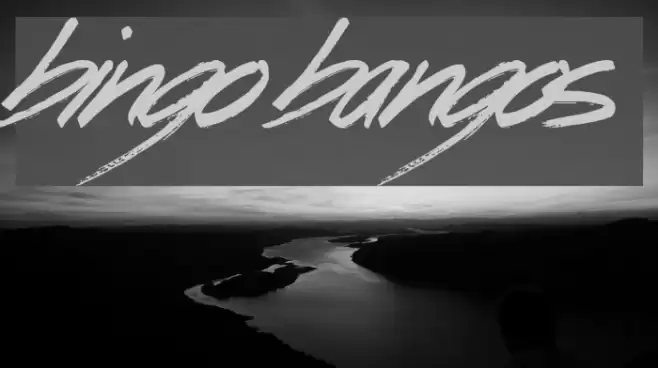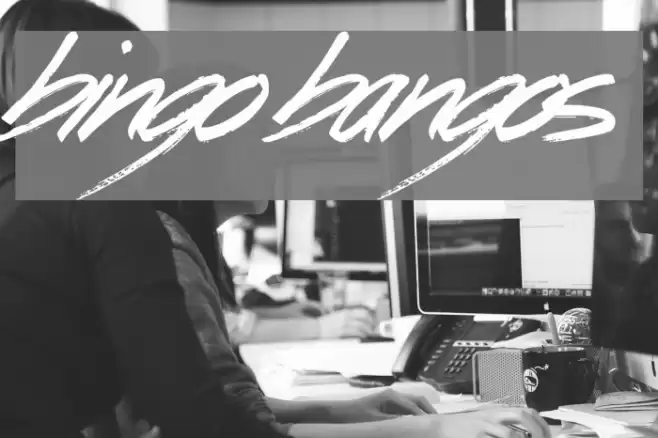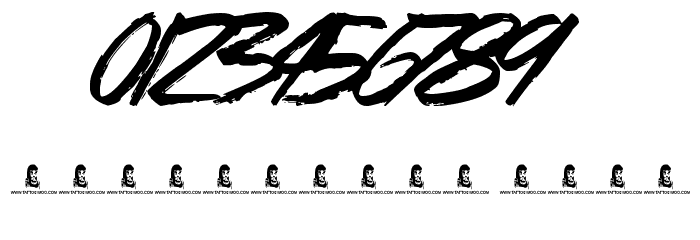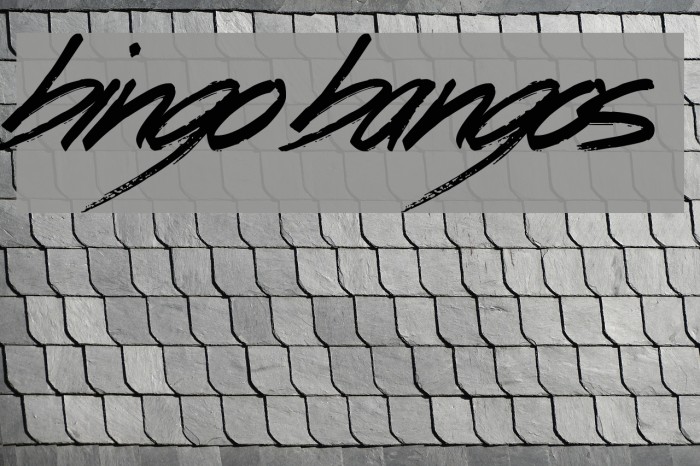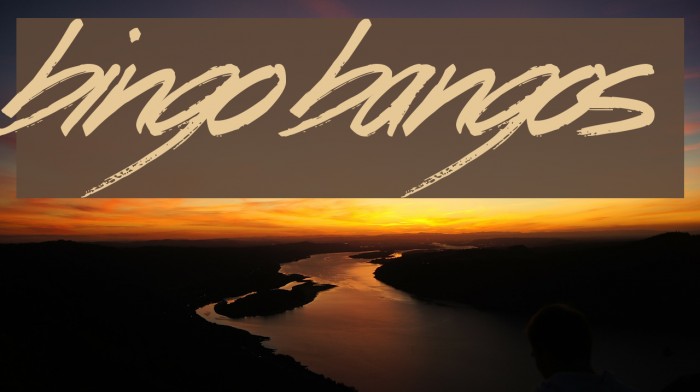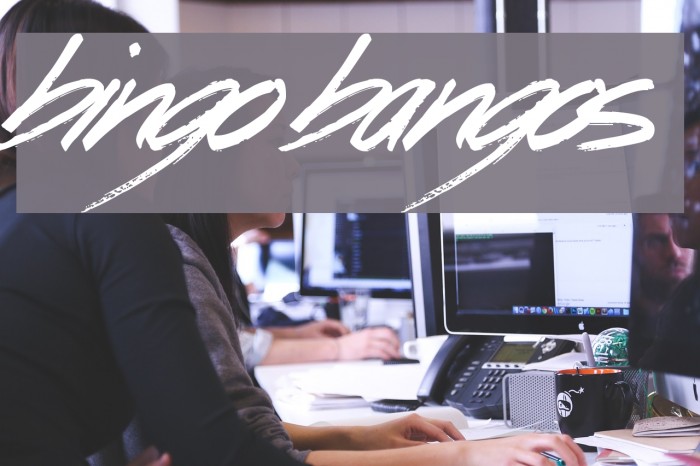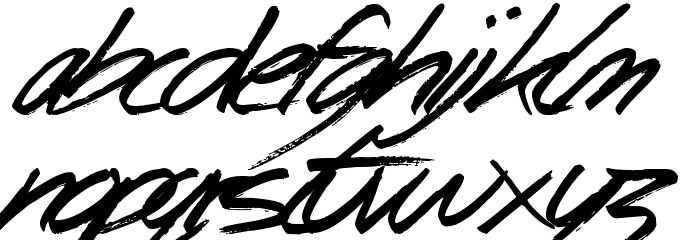
Bingo Bangos Font
Bingo Bangos Description
This font exudes a dynamic and energetic style, characterized by its bold, brush-like strokes that give it a hand-painted appearance. The letters are slightly slanted, adding a sense of motion and fluidity. The uppercase and lowercase letters maintain a consistent style, with exaggerated curves and sharp edges that create a striking visual impact. The numbers follow the same aesthetic, ensuring uniformity across all characters. This font is ideal for projects that require a bold statement, such as posters, album covers, or branding materials. Its unique style makes it stand out, capturing attention with its artistic flair.
A bold, brush-stroke font with a dynamic and energetic style from Uncategorized fonts.
- Proposed Projects: Ideal for posters, album covers, branding materials, and any project needing a bold statement.
- Character Spacing: Tight